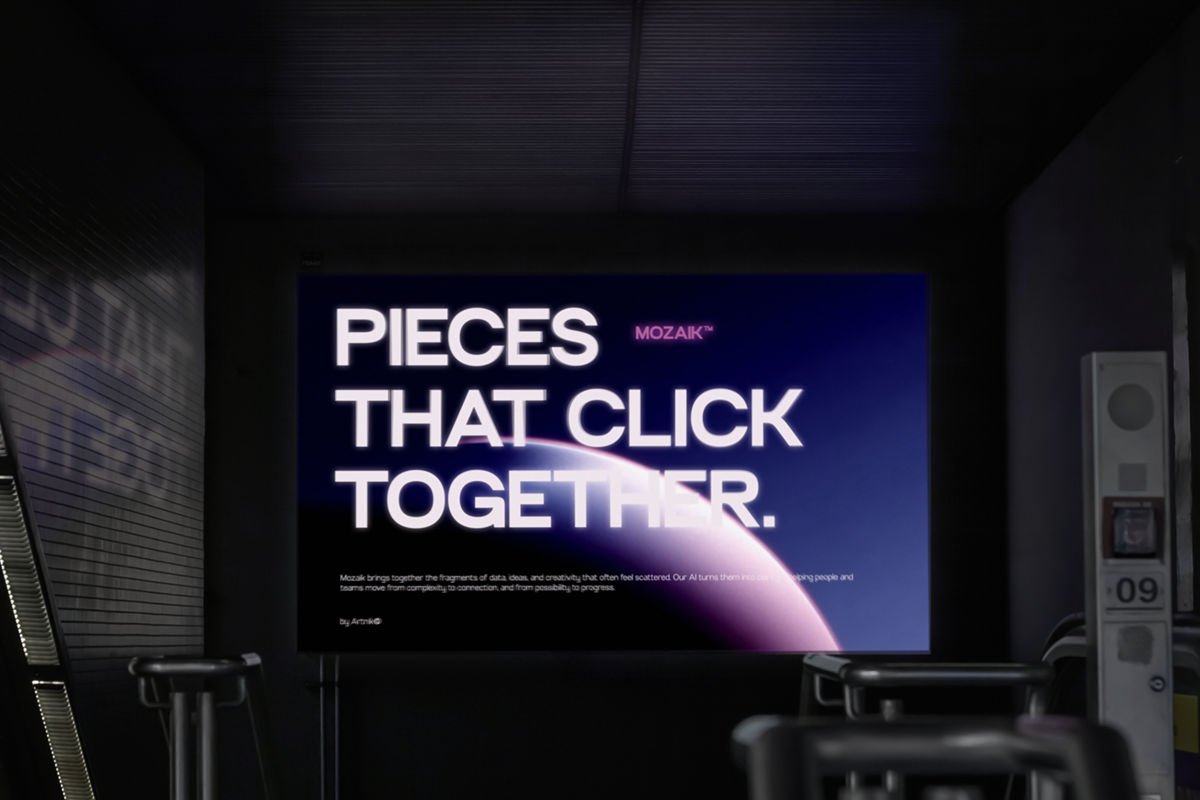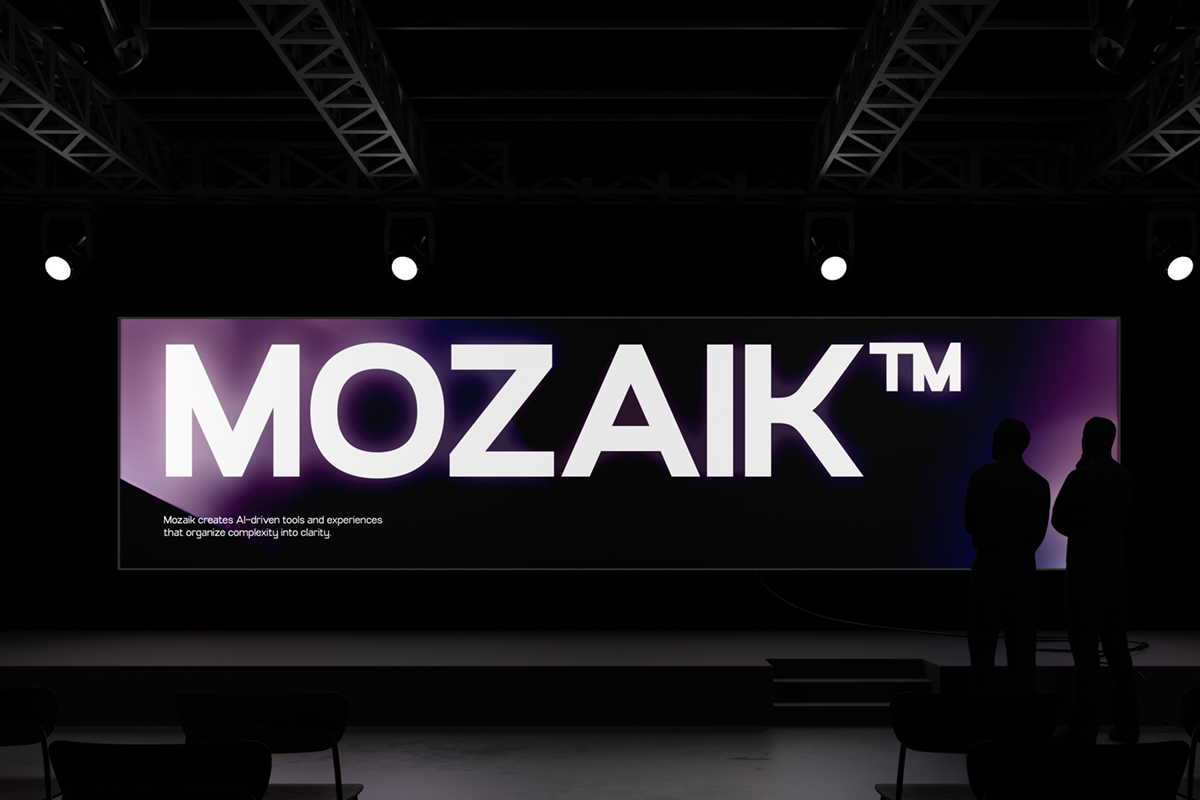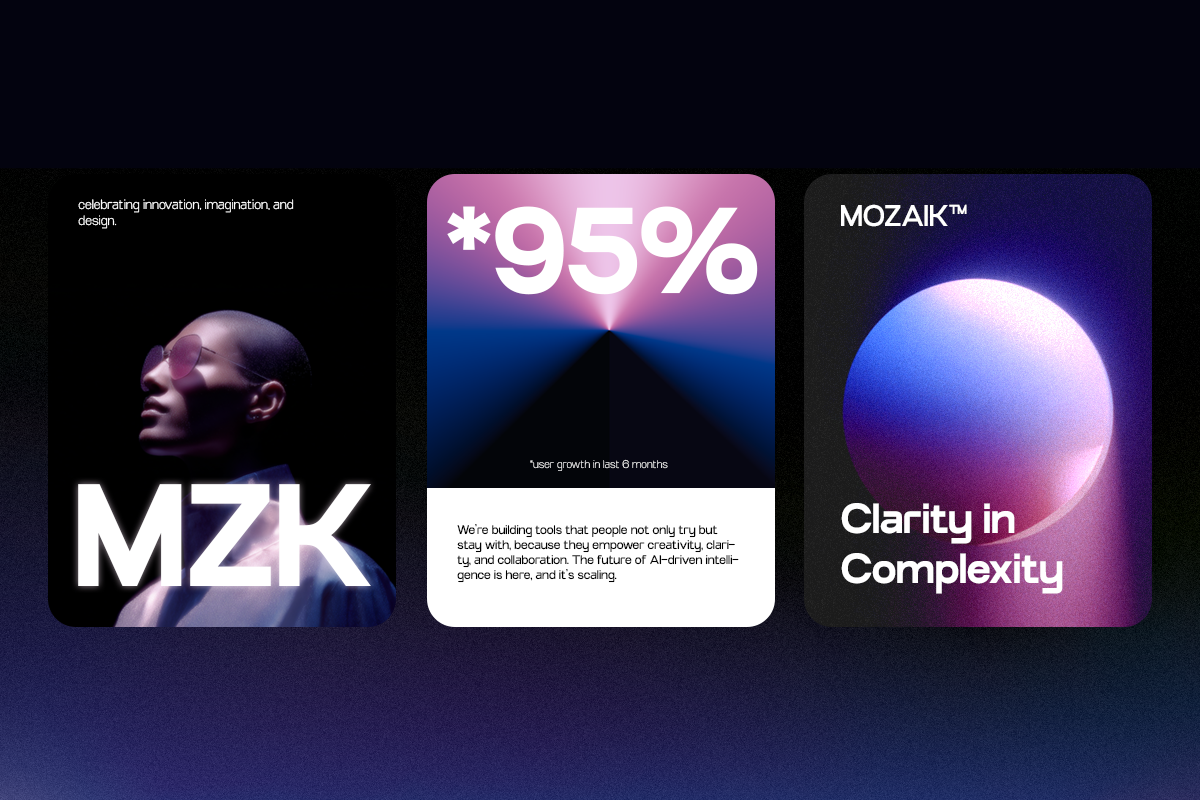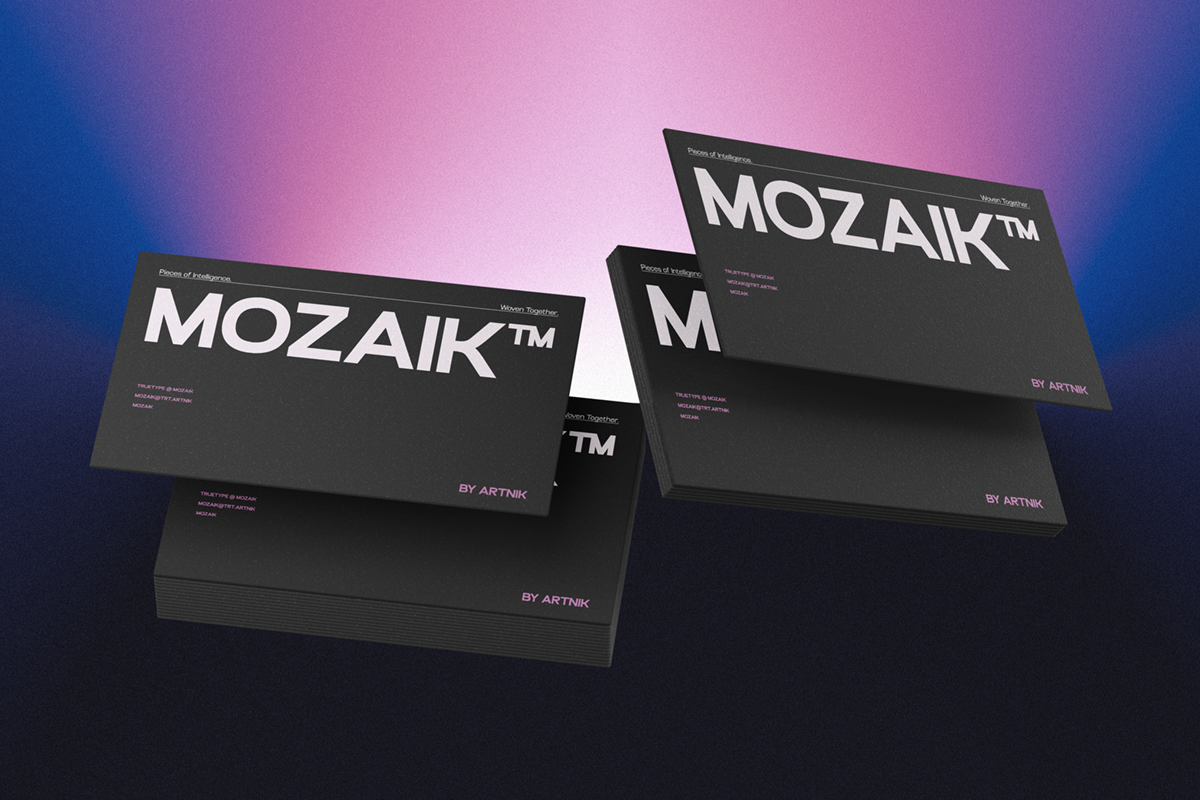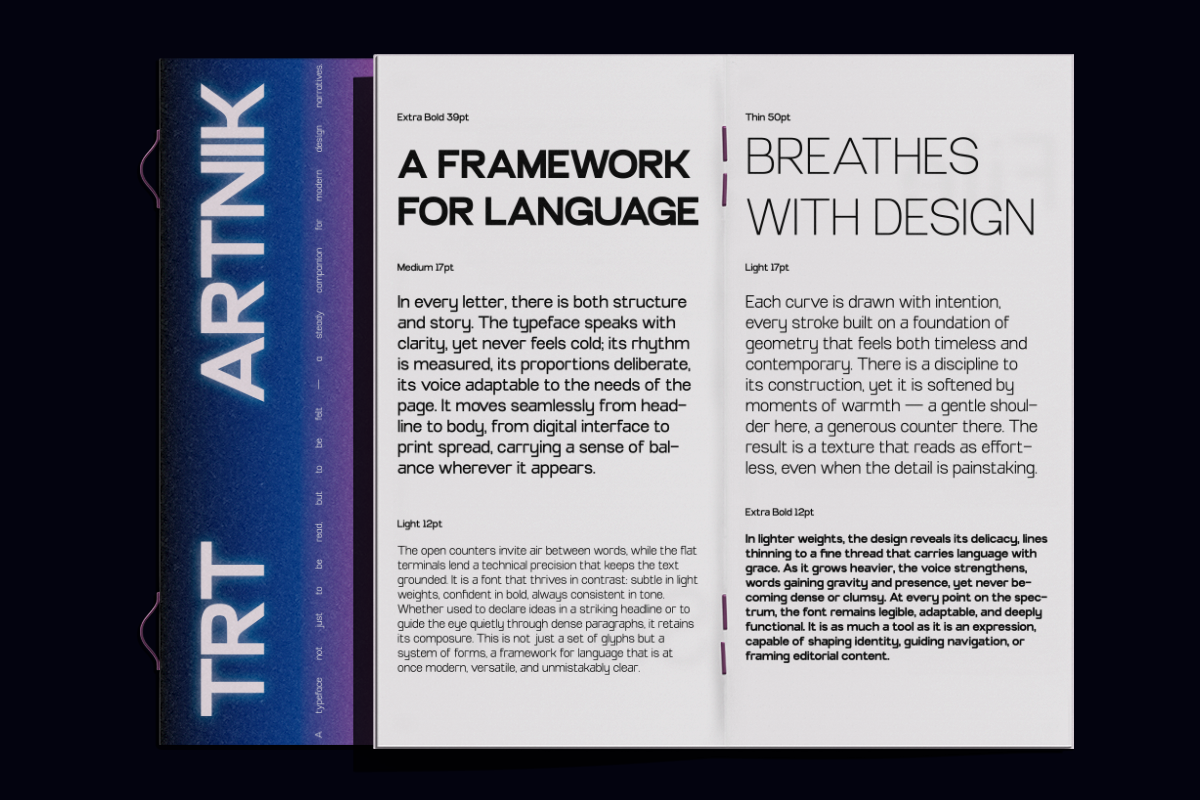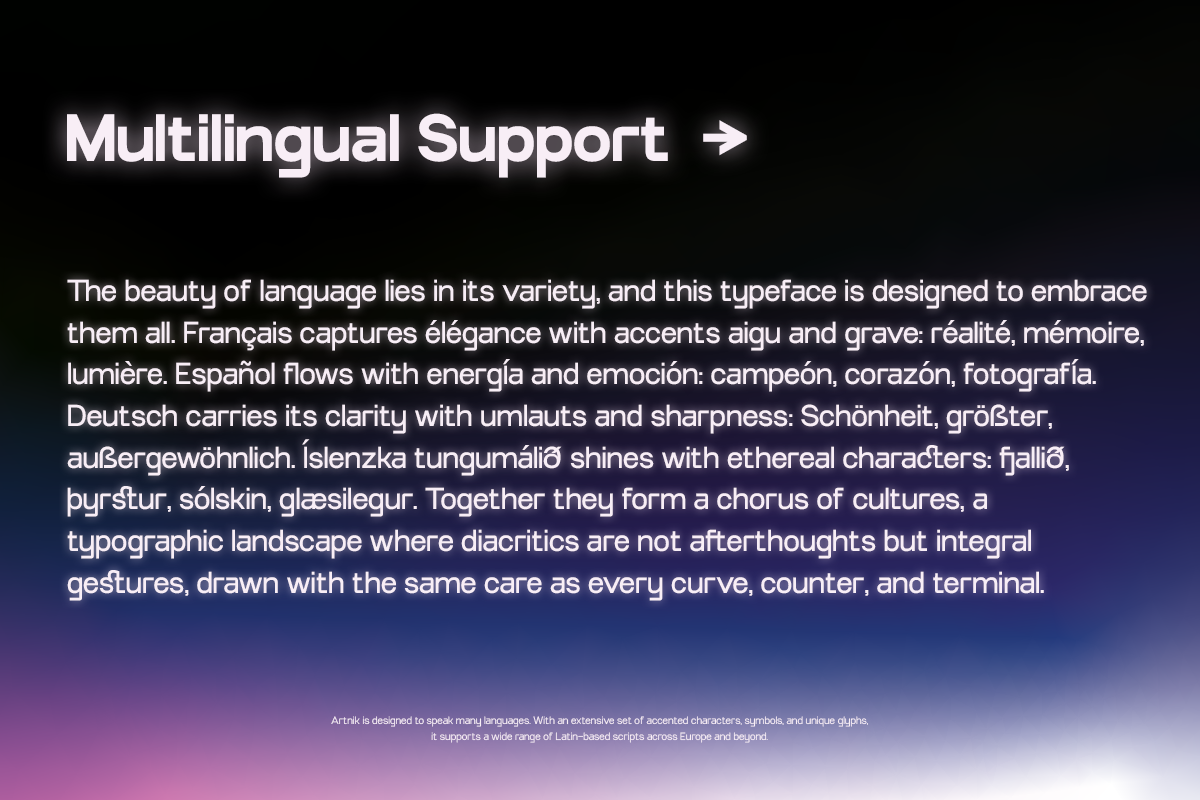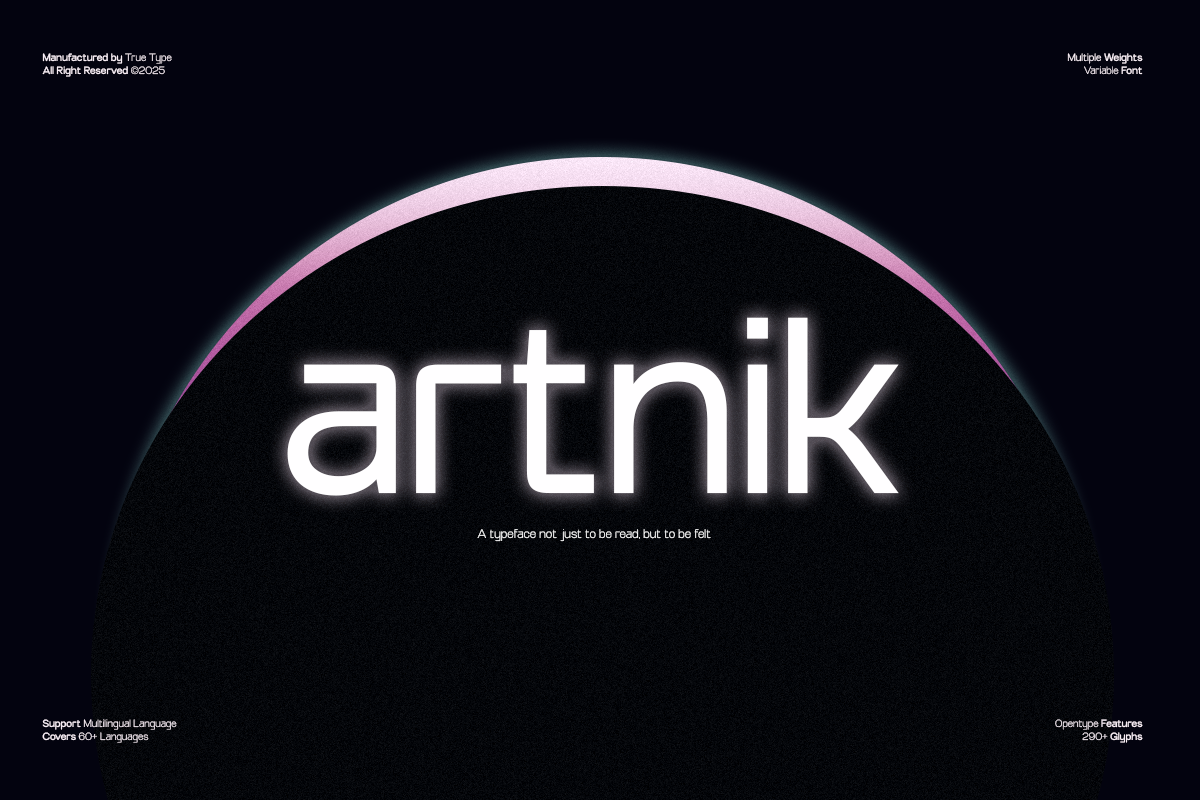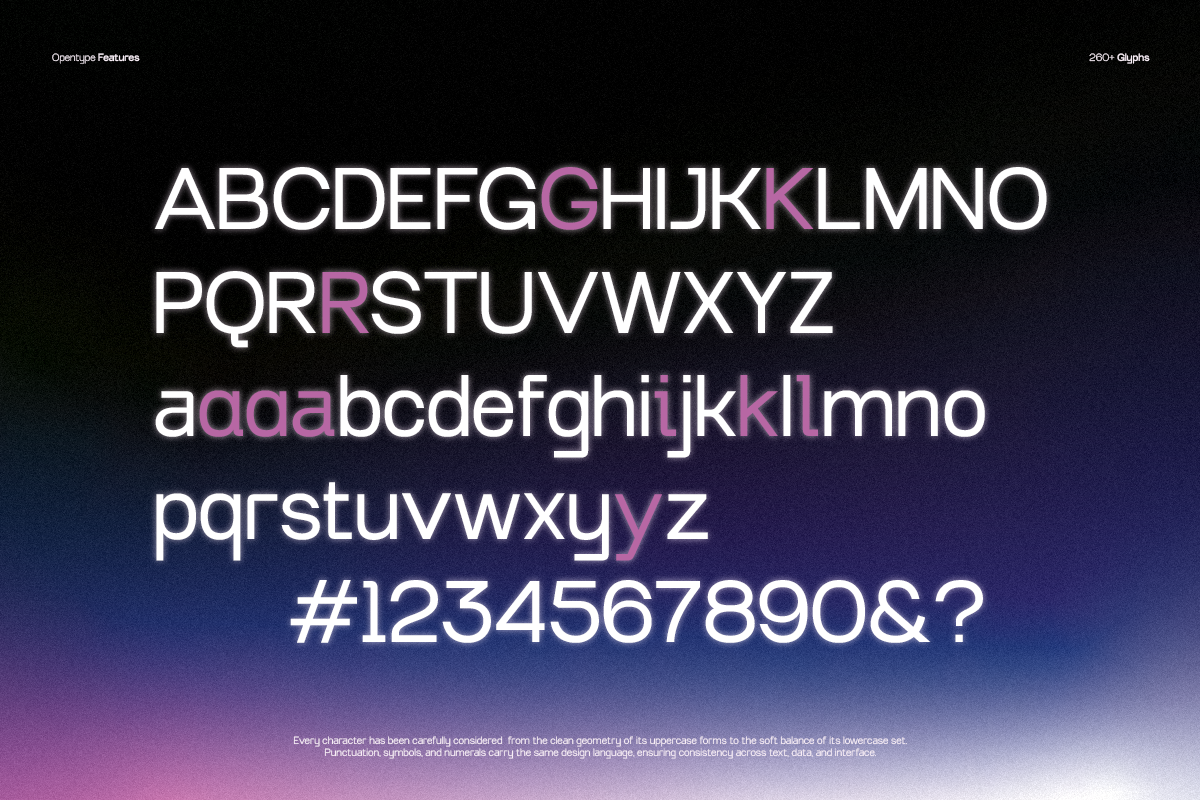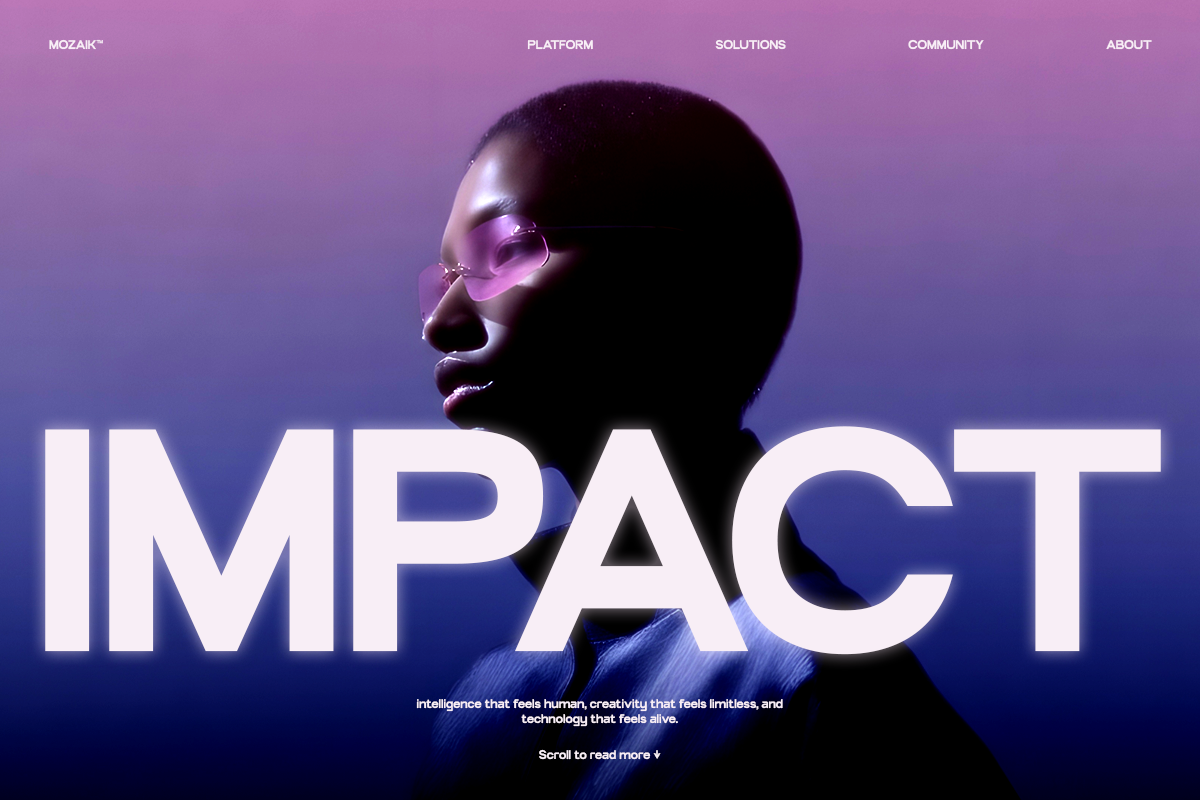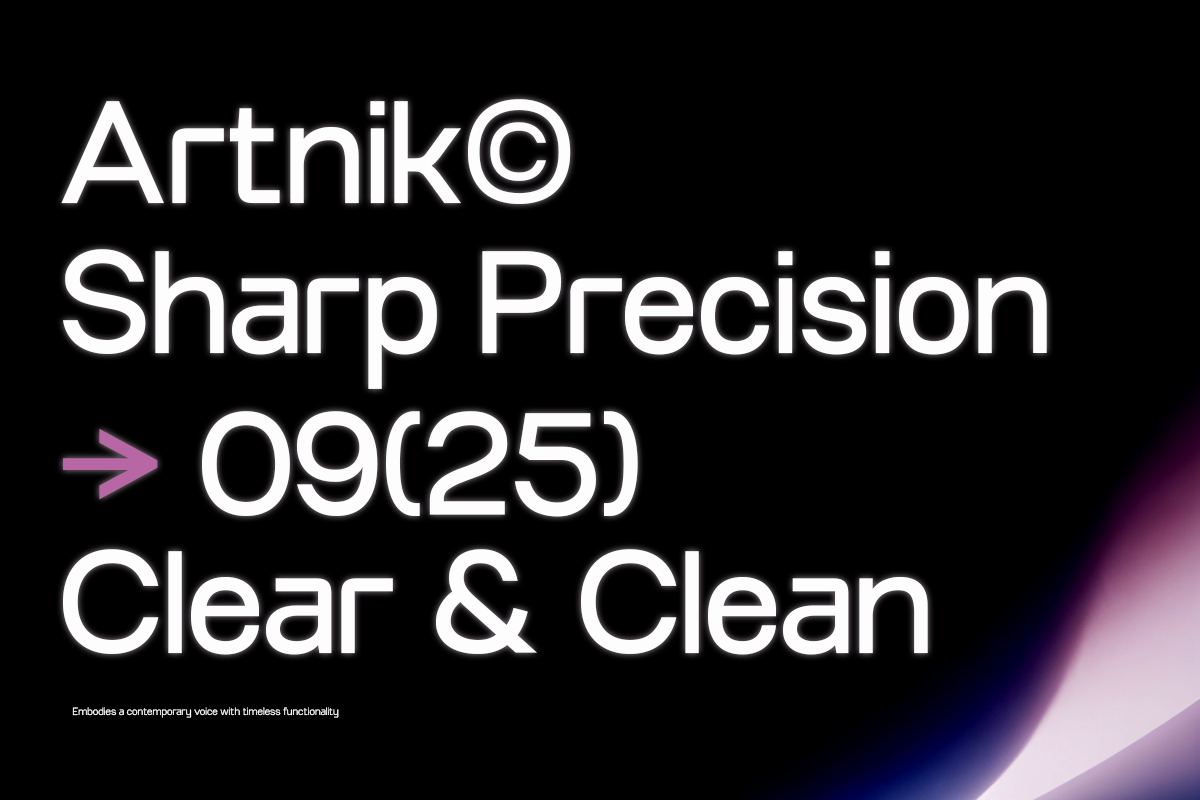
TRT Artnik – Modern Geometric Sans Serif Typeface
TRT Artnik – Modern Geometric Sans Serif Typeface created by TrueType
When I began working on TRT Artnik, I was reminded of the strength of simple leTRTerforms I had once seen in classic fonts like Futura. That typeface carries a sense of precision, order, and timelessness — but I wanted to create a version that felt more flexible and refreshed for today’s design needs.
From there, I started shaping the leTRTers using circles and straight lines, keeping the proportions balanced while adding subtle details to certain characters to make them friendlier and more recognizable.
The result is TRT Artnik — a semi-display sans serif that maintains a geometric structure yet remains versatile for a wide range of projects. From branding and editorial work to digital interfaces, Artnik is designed to be clear, clean, and full of character.